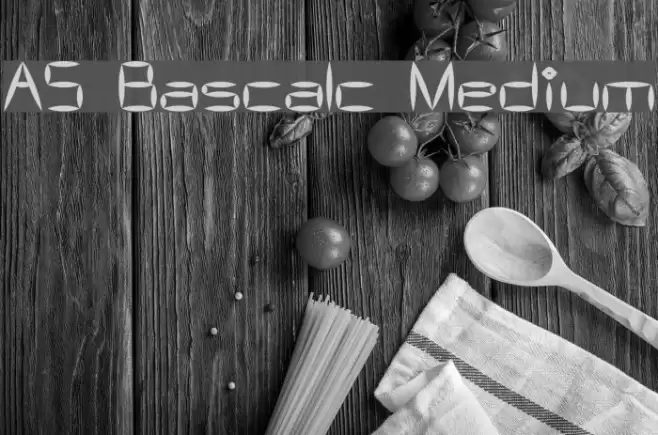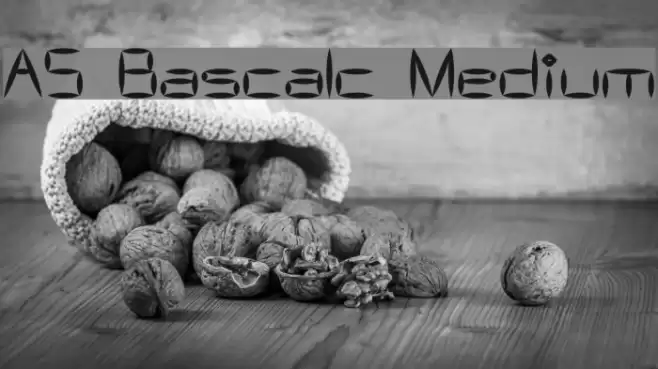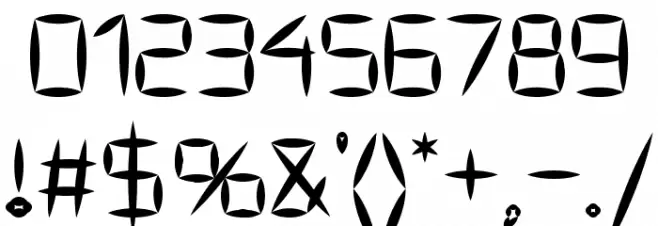
AS Bascalc Medium Font
AS Bascalc Medium Description
This font features a unique, futuristic style with angular, geometric shapes that create a bold and striking appearance. The characters are composed of sharp edges and pointed tips, giving them a dynamic and edgy look. The uppercase and lowercase letters maintain a consistent design, with a strong emphasis on symmetry and balance. Numbers and special characters follow the same aesthetic, ensuring a cohesive visual identity. The font's distinct style makes it stand out, perfect for projects that require a modern and innovative touch.
A futuristic, geometric font with sharp, angular shapes from Uncategorized fonts.
- Proposed Projects: Ideal for sci-fi themed designs, technology branding, video game titles, and modern posters.
- Overall Style: Futuristic